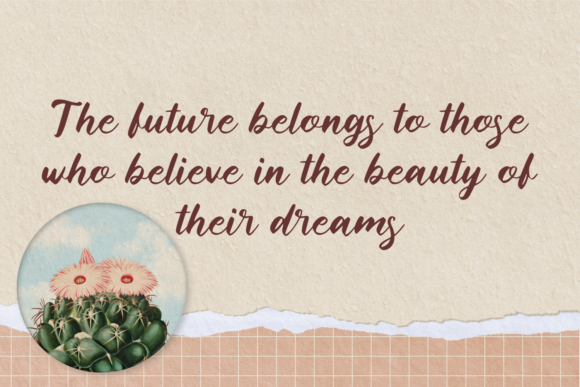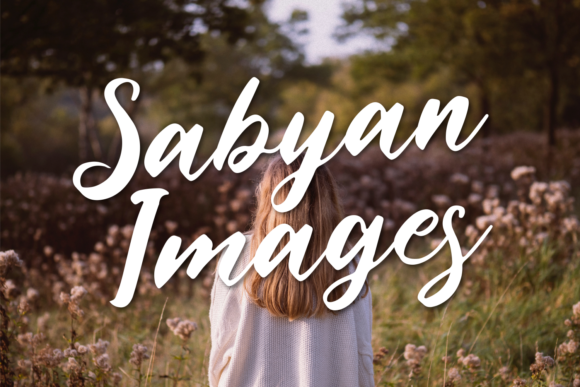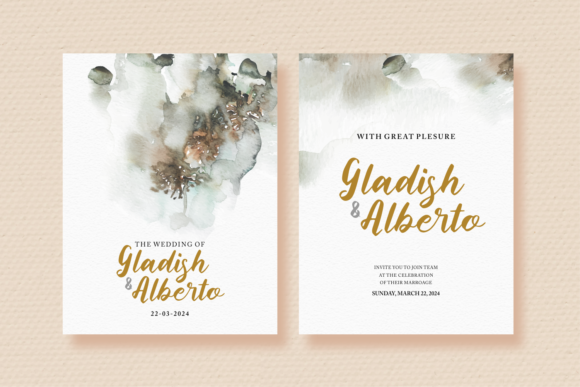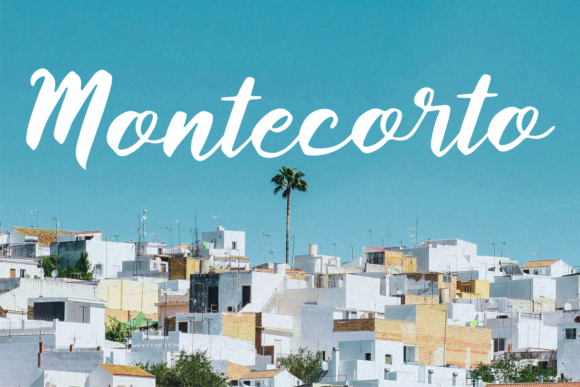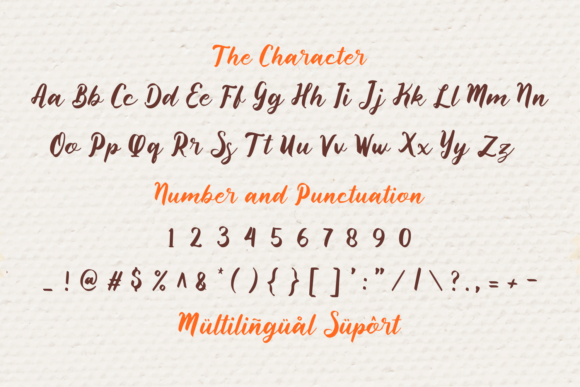
Introducing Colaneira Font: The Perfect Modern Handwritten Script for Your Creative Projects
In the world of typography, handwritten scripts continue to captivate audiences with their unique charm and character. Among these, the Colaneira Font stands out as a modern and elegant choice for designers and crafters alike. This versatile font is perfect for a wide range of applications, from product packaging and branding projects to magazines, social media, weddings, and more. In this article, we’ll explore the features and benefits of Colaneira Font, and why it’s an excellent addition to your typography collection.
What is Colaneira Font?
Colaneira is a modern handwritten script font designed to bring a touch of sophistication and personality to your creative projects. Its flowing lines, subtle curves, and carefully crafted letterforms make it an ideal choice for those seeking a unique and eye-catching typography solution. Whether you’re working on a branding project, designing a magazine, or simply looking to add a personal touch to your social media posts, Colaneira Font is sure to impress.
Key Features of Colaneira Font
• Modern Handwritten Script: Colaneira Font boasts a fresh and contemporary handwritten script style, perfect for designers and crafters looking for a modern twist on traditional typography.
• Highly Versatile: This font is suitable for a wide range of applications, including product packaging, branding projects, magazines, social media, weddings, and more.
• Elegant and Sophisticated: Colaneira Font features flowing lines, subtle curves, and carefully crafted letterforms, making it an excellent choice for projects that require a touch of elegance and sophistication.
• Easy to Read: Despite its ornate nature, Colaneira Font remains highly legible, ensuring that your message is conveyed clearly and effectively.
Use Cases for Colaneira Font
Colaneira Font is an incredibly versatile typography solution, suitable for a wide range of creative projects. Here are some use cases to inspire you:
• Product Packaging: Add a personal touch to your product packaging with Colaneira Font, making your brand stand out on store shelves.
• Branding Projects: Use Colaneira Font to create a unique and memorable brand identity that reflects your company’s personality and values.
• Magazines and Publications: Add a touch of elegance to your magazine or publication with Colaneira Font, perfect for headings, subheadings, and quotes.
• Social Media: Elevate your social media presence with Colaneira Font, using it to create eye-catching graphics, posts, and stories.
• Weddings and Events: Make your wedding or event stationery truly special with Colaneira Font, adding a romantic and whimsical touch to your invitations, menus, and more.
Why Choose Colaneira Font?
With so many typography options available, why choose Colaneira Font? Here are a few compelling reasons:
• Unique and Eye-Catching: Colaneira Font offers a distinctive and captivating style that will set your project apart from the rest.
• High-Quality Design: This font is designed with precision and attention to detail, ensuring a high-quality finish that will elevate your project.
In conclusion, Colaneira Font is an exceptional modern handwritten script font that offers a perfect blend of elegance, sophistication, and personality. Its versatility, legibility, and high-quality design make it an excellent choice for a wide range of creative projects. Whether you’re a designer, crafter, or simply someone looking to add a personal touch to your work, Colaneira Font is sure to inspire and impress.